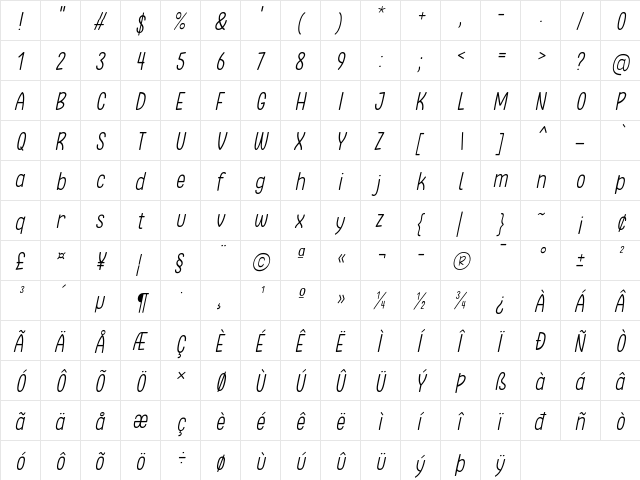
Clambake October Six Light Italic Font Preview
Design Context for Clambake October Six Light Typeface
Clambake October Six Light offers clean, dependable letterforms without strong stylistic allegiance, making it a practical choice for designers who need flexibility. Its italic angle brings a sense of urgency and motion to the letterforms. The delicate stroke weight brings airiness and refinement to layouts.
Pro Tip: Use Clambake October Six Light for emphasis, pull quotes, and subheadings where its slanted energy can add rhythm to the layout.